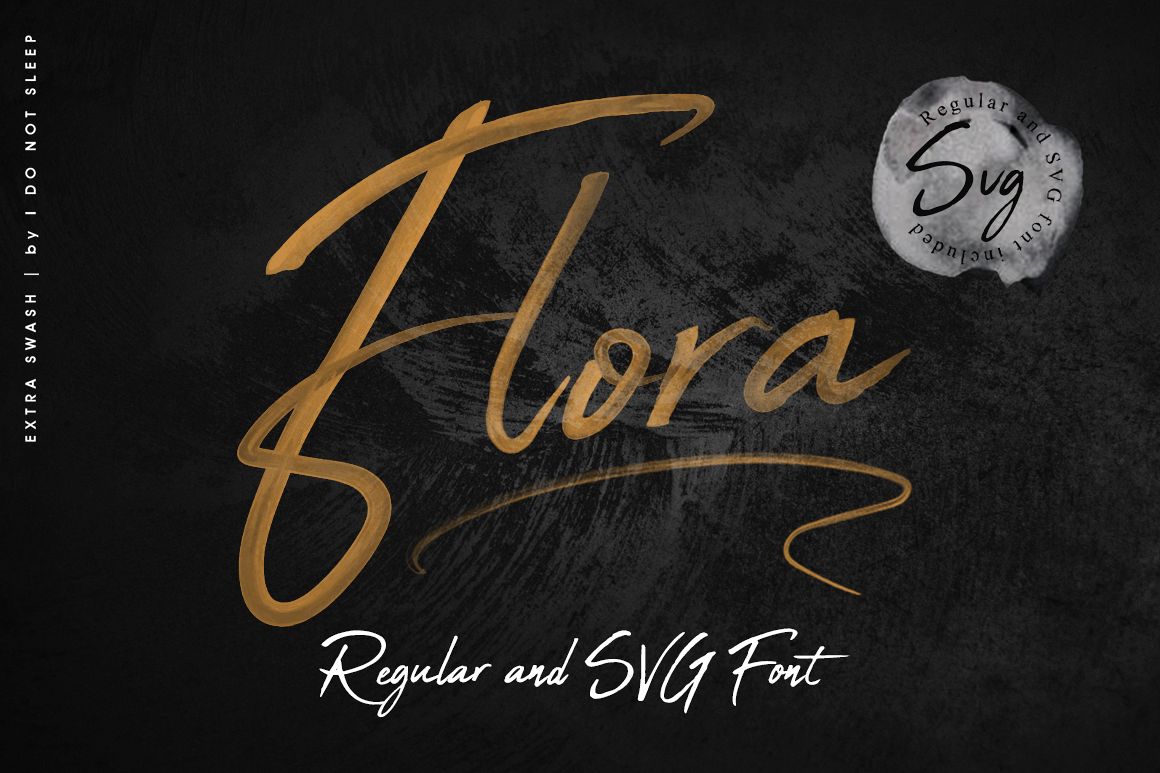
Introducing Flora SVG & REGULAR a new set of high-tech SVG Fonts designed with watercolour brush details made directly in it, No need to spend hours making hand-painted letters - just type these babies directly into your project.
This SVG font is supported by Opentype Ligatures and Alternate letters to make your project look truly authentic and realistic.